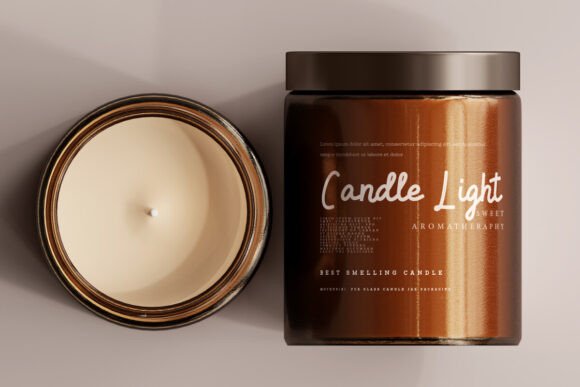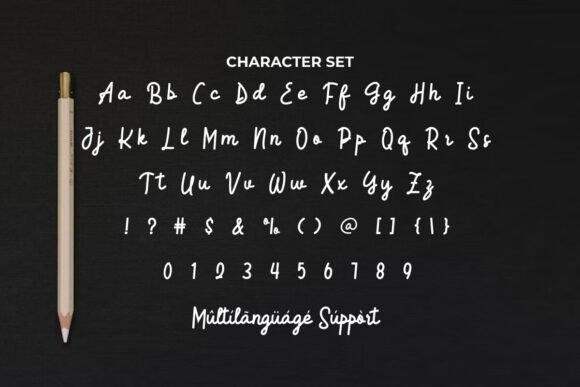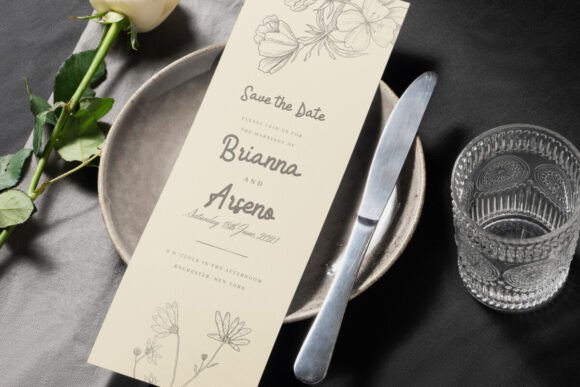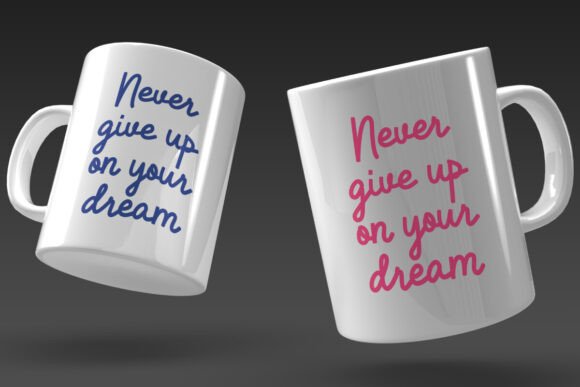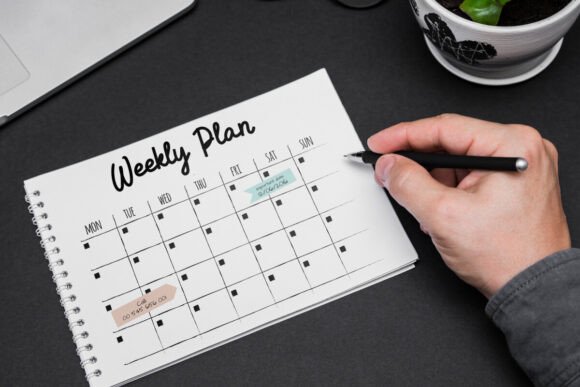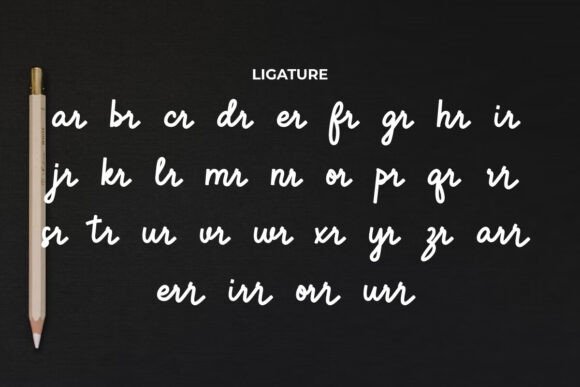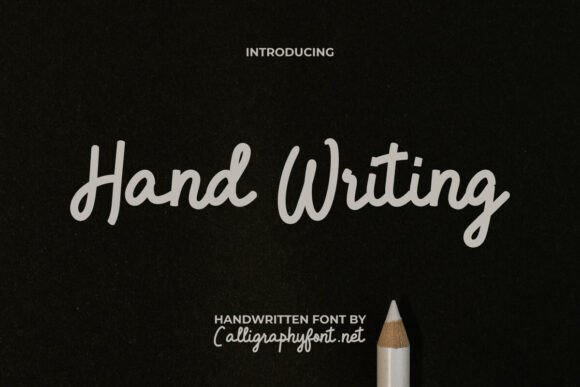
Introducing Hand Writing Font: The Perfect Addition to Your Creative Projects
Are you looking for a font that adds a touch of personality and charm to your designs? Look no further than Hand Writing Font, a rounded bold stylish handwritten font that’s perfect for creative projects. With its perfectly round thick brush strokes, this font is sure to keep your designs steady and charming.
What is Hand Writing Font?
Hand Writing Font is a carefully crafted handwritten font that’s designed to add a touch of elegance and sophistication to your designs. Its rounded bold style gives it a unique and distinctive look that’s sure to grab attention. Whether you’re working on a logo, advertisement, or packaging design, Hand Writing Font is the perfect choice.
What Makes Hand Writing Font So Special?
So, what sets Hand Writing Font apart from other fonts? Here are just a few reasons why it’s a cut above the rest:
- Unique and distinctive look: Hand Writing Font has a one-of-a-kind style that’s sure to make your designs stand out.
- Easy to read: Despite its bold and chunky appearance, Hand Writing Font is surprisingly easy to read, making it perfect for body text and headings.
- Versatile: Hand Writing Font is suitable for a wide range of design applications, from advertising and branding to packaging and publishing.
- Stunning aesthetics: With its perfectly round thick brush strokes, Hand Writing Font adds a touch of beauty and sophistication to every design.
Hand Writing Font is perfect for a wide range of creative projects, including:
- Advertisements: Add a touch of personality and charm to your ads with Hand Writing Font.
- Billboards: Make your billboards stand out with this bold and eye-catching font.
- Brand logos: Create a unique and memorable logo with Hand Writing Font.
- Business cards: Add a touch of elegance and sophistication to your business cards.
- Company signs: Make a great impression with Hand Writing Font on your company signs.
- Covers: Use Hand Writing Font to create stunning book covers, magazine covers, and more.
- Headers: Add a touch of personality to your headers and titles with Hand Writing Font.
- Invitations: Create beautiful and unique invitations with Hand Writing Font.
- Labels: Use Hand Writing Font to create eye-catching labels for your products or packaging.
- Menus: Add a touch of elegance and sophistication to your menus with Hand Writing Font.
- Product packaging: Make your product packaging stand out with Hand Writing Font.
- Quotes: Use Hand Writing Font to create beautiful and inspiring quotes.
- Recipe book: Create a stunning recipe book with Hand Writing Font.
- Screen print: Use Hand Writing Font to create unique and eye-catching screen prints.
- Stickers: Create fun and colorful stickers with Hand Writing Font.
- Titles: Add a touch of personality and charm to your titles with Hand Writing Font.
- Websites: Use Hand Writing Font to create a unique and memorable website.
Suitable for a Wide Range of Industries
Hand Writing Font is suitable for a wide range of industries, including:
- Accessories: Add a touch of elegance and sophistication to your accessories with Hand Writing Font.
- Author: Use Hand Writing Font to create stunning book covers, author websites, and more.
- Bakery: Make your bakery menus, packaging, and advertising stand out with Hand Writing Font.
- Café: Add a touch of charm and personality to your café menus, signage, and advertising with Hand Writing Font.
- Cooking class: Use Hand Writing Font to create stunning recipe books, menus, and more for your cooking class.
- Craft: Add a touch of personality and charm to your craft projects with Hand Writing Font.
- Fashion: Use Hand Writing Font to create stunning fashion branding, advertising, and packaging.
- Film: Add a touch of glamour and sophistication to your film titles, posters, and marketing materials with Hand Writing Font.
- Glassware: Make your glassware packaging and branding stand out with Hand Writing Font.
- Interior design: Use Hand Writing Font to create stunning interior design branding, marketing materials, and more.
- Printing: Add a touch of elegance and sophistication to your printing projects with Hand Writing Font.
- Publishing: Use Hand Writing Font to create stunning book covers, magazines, and more.
- Restaurant: Make your restaurant menus, signage, and advertising stand out with Hand Writing Font.
- Spa salon: Add a touch of relaxation and sophistication to your spa salon branding, marketing materials, and more with Hand Writing Font.
In conclusion, Hand Writing Font is a versatile and stylish handwritten font that’s perfect for creative projects. With its unique and distinctive look, ease of readability, and stunning aesthetics, it’s sure to add a touch of personality and charm to your designs. Whether you’re working on a logo, advertisement, packaging design, or more, Hand Writing Font is the perfect choice. So why wait? Download Hand Writing Font today and take your designs to the next level!